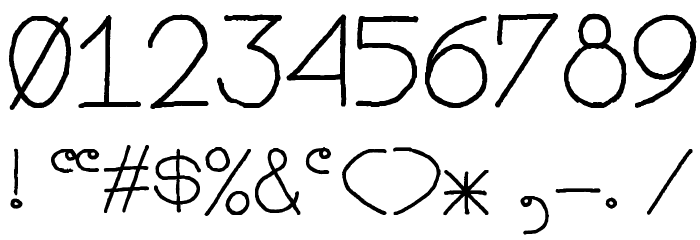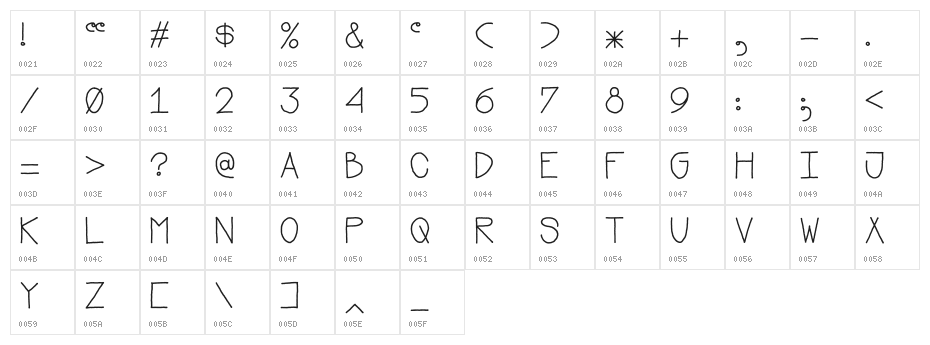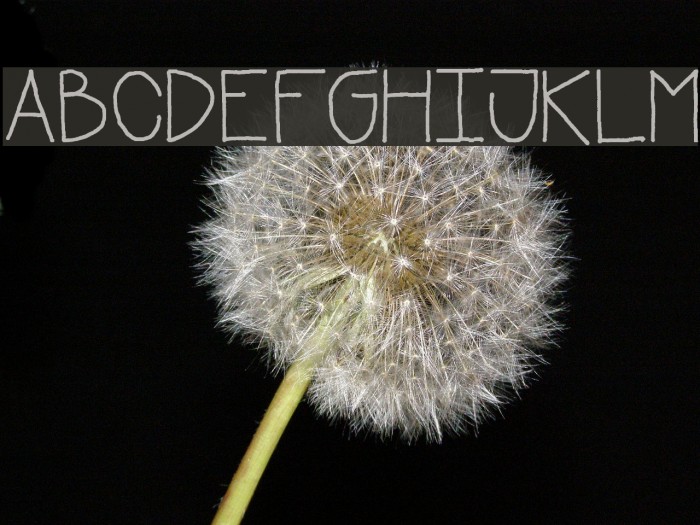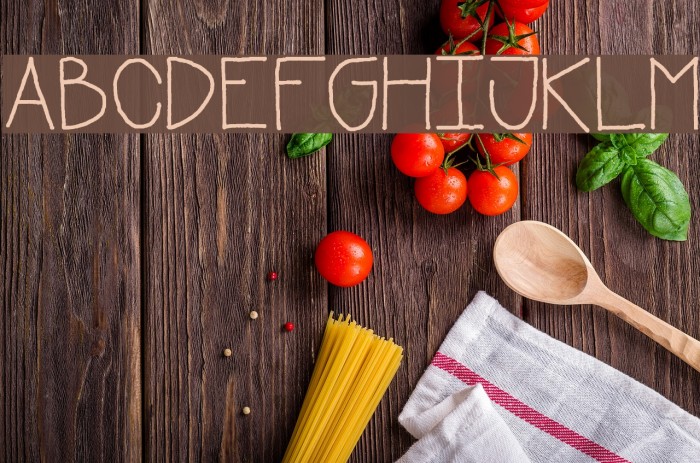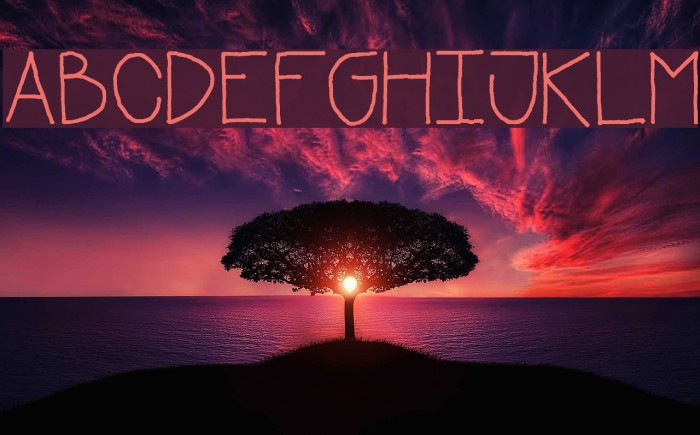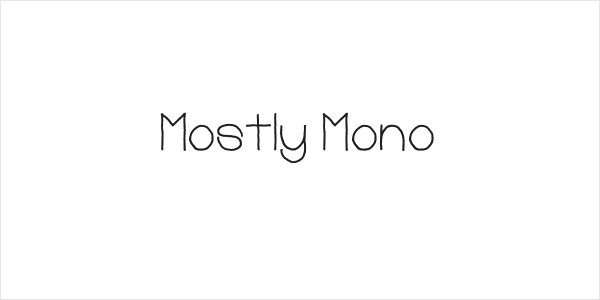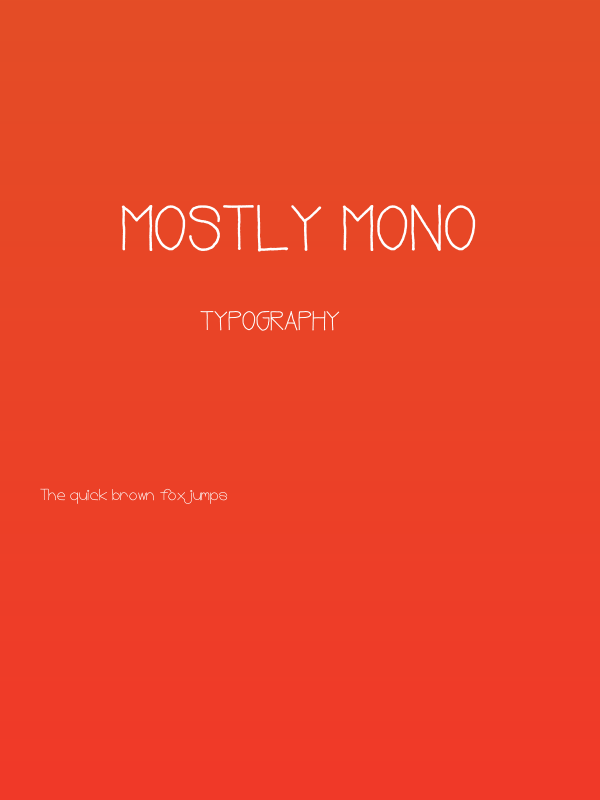
Mostly Mono Font
Mostly Mono Description
This font features a playful and hand-drawn aesthetic with a monospaced style, giving it a unique and informal appearance. The characters are slightly irregular, adding to its charm and making it suitable for creative projects. The uppercase and lowercase letters maintain a consistent height, while the numerals and special characters are designed with a similar whimsical touch. The strokes are thin and uniform, contributing to a clean and legible look. This font is ideal for projects that require a personal and approachable feel, such as children's books, casual invitations, or artistic designs.
| Overall Style | Playful, Informal |
| Use Case | Headlines, Artistic designs, Casual text |
| Proposed Projects | Children's books, casual invitations, artistic designs, personal blogs, and creative posters. |